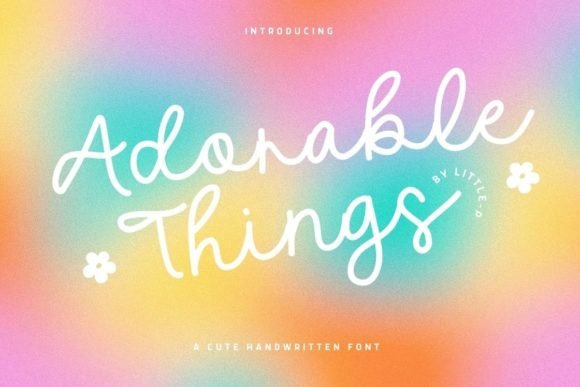
The Perfect Blend of Whimsy and Charm: Introducing Adorable Things Font
As designers, we’ve all had those moments of pure creative joy – when a font, a color palette, or a simple layout comes together to bring a project to life. For me, it’s the instant I see a handwritten font transform a bland design into a warm, inviting piece that speaks to the heart. And that’s exactly what the Adorable Things Font does – it brings a handwritten and cute look to your designs, making them perfect for adding a touch of charm to your special occasions.
Whether you’re a professional designer or a creative enthusiast, the Adorable Things Font is an invaluable addition to your toolkit. Its stylish and simple aesthetic makes it perfect for a wide range of applications, from wedding invitations and thank you cards to inspiring quotes and professional business cards.
Adorable Things Font Key Features
- Font Style: A playful, cursive font with rounded edges and whimsical flair, perfect for children’s books, greeting cards, and other creative projects.
- Character Set: Supports a wide range of languages, including Latin, Cyrillic, and Greek alphabets, making it suitable for international projects.
- Unique Characteristics: Features a unique, hand-drawn feel and subtle texture, adding an extra layer of charm and personality to any design.
Adorable Things Font Review
As a designer, I’m always on the lookout for unique and quirky fonts to add some personality to my designs. Adorable Things Font is a great option, but it’s not without its flaws.
- The font’s whimsical nature makes it perfect for children’s books, party invitations, and other playful designs.
- The bold and italic styles are well-designed and add a nice contrast to the regular weight.
- The font is highly customizable, making it easy to adjust the size, color, and spacing to fit your design needs.
- The font can be overwhelming in large quantities, so use it sparingly to avoid visual fatigue.
- The regular weight is a bit too thin, making it difficult to read in small sizes.
- The font may not be suitable for formal or professional designs, as it’s too playful and attention-seeking.
Overall, I think Adorable Things Font is a great addition to any designer’s toolkit. While it may have some limitations, its unique charm and versatility make it a great option for the right projects. Just be sure to use it judiciously and pair it with other fonts to avoid overwhelming your design.
Tips for Getting the Most Out of the Adorable Things Font
For best results, pair the Adorable Things Font with bold, playful graphics and bright colors. You can also use it to create a whimsical, hand-drawn feel by adjusting the font size and color to create a sense of movement and energy.
The Adorable Things Font is perfect for creating invitations, social media graphics, and other materials that require a playful, youthful feel. You can also use it to add a touch of whimsy to your branding and marketing materials.
Alternatives to Adorable Things Font